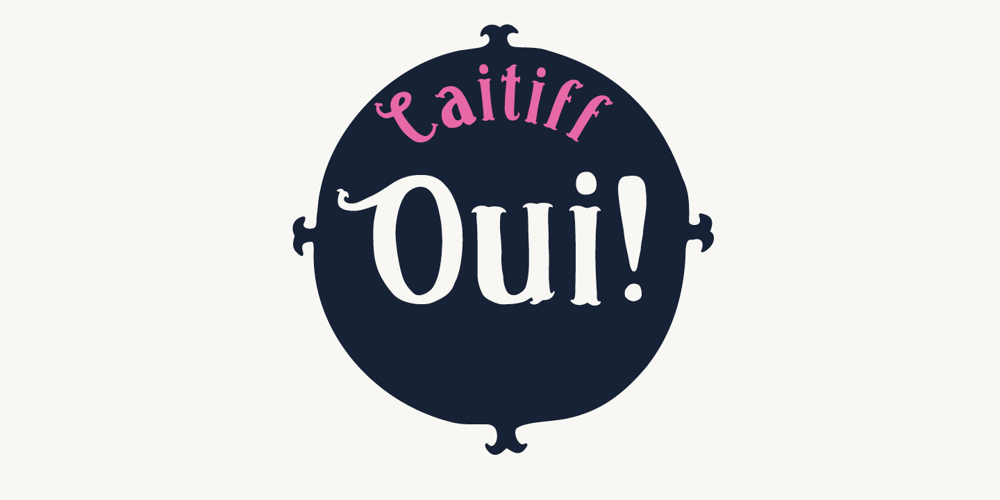
Caitiff Font Family was designed by Andreas Brunelius and published by Gustav & Brun. Caitiff contains 2 styles and family package options. Caitiff is a unique hand drawn serif. It includes about 25 ornaments to compliment your text and a couple of stylistic alternatives to your capital letters. Caitiff Slanted is an oblique version of Caitiff. Caitiff is a decorative typeface. You can use Caitiff in any setting; children’s books, beer labels, organic food packages, menus… the sky is your limit!